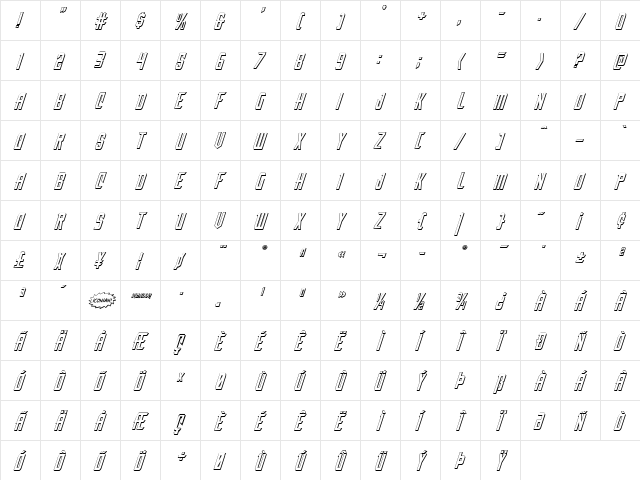
Nemesis Enforcer 3D Italic Italic
Design Context for Nemesis Enforcer 3D Italic Typeface
Nemesis Enforcer 3D Italic has the bold swagger of sports branding: strong, assertive letterforms designed to dominate headlines and jerseys alike. Its italic angle brings a sense of urgency and motion to the letterforms.
Built for sports team identities, athletic apparel, event posters, and high-energy promotional material.
Pro Tip: Nemesis Enforcer 3D Italic thrives on contrast — try it large, bold, and tight against a clean background for maximum visual impact.